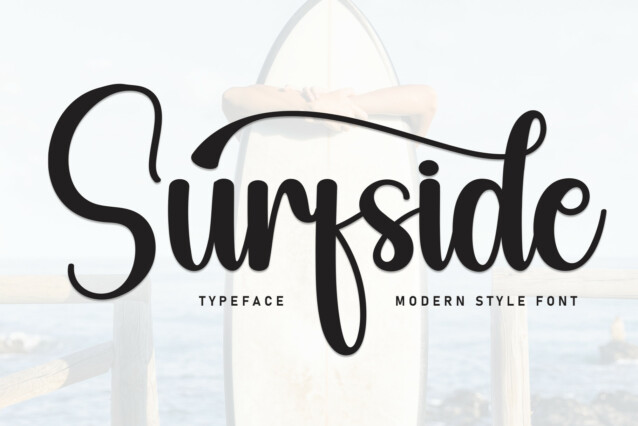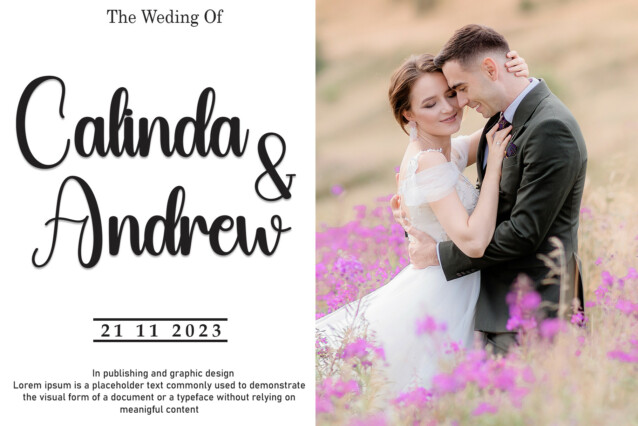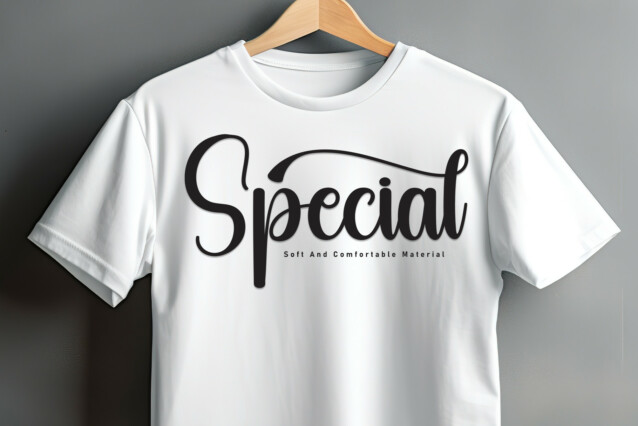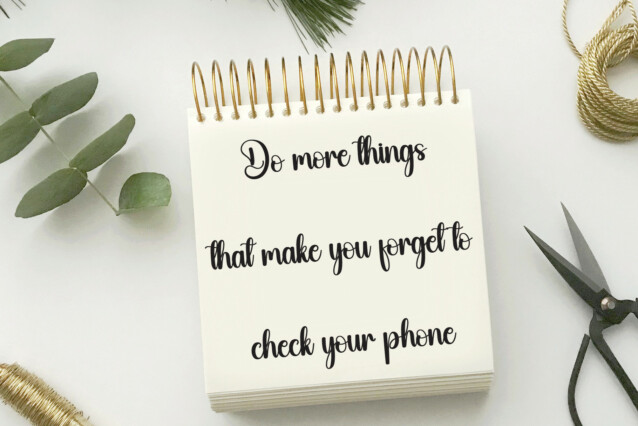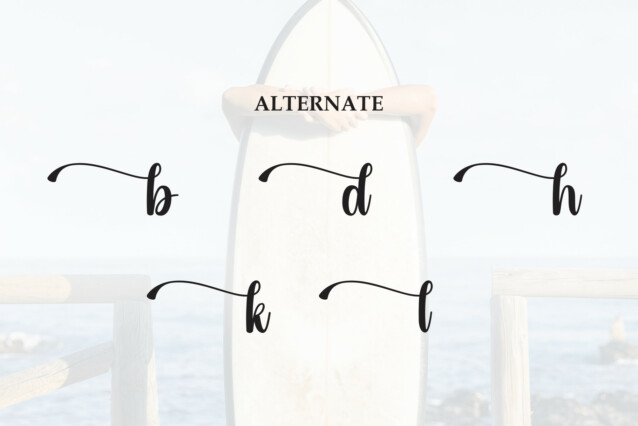
Surfside Script Font
Surfside Script Font is a sweet and friendly handwritten font. Its natural and unique style makes it incredibly fitting to a large pool of designs. The only limit is your imagination!